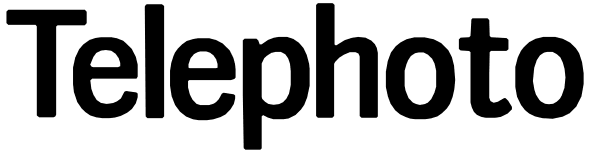
Telephoto
Telephoto is a 20th Century style grotesque with a soft, analog feeling. Class-based kerning is included as well as old-style numerals. In OpenType savvy applications, letters and numeral variations are automatically shuffled to create a more...